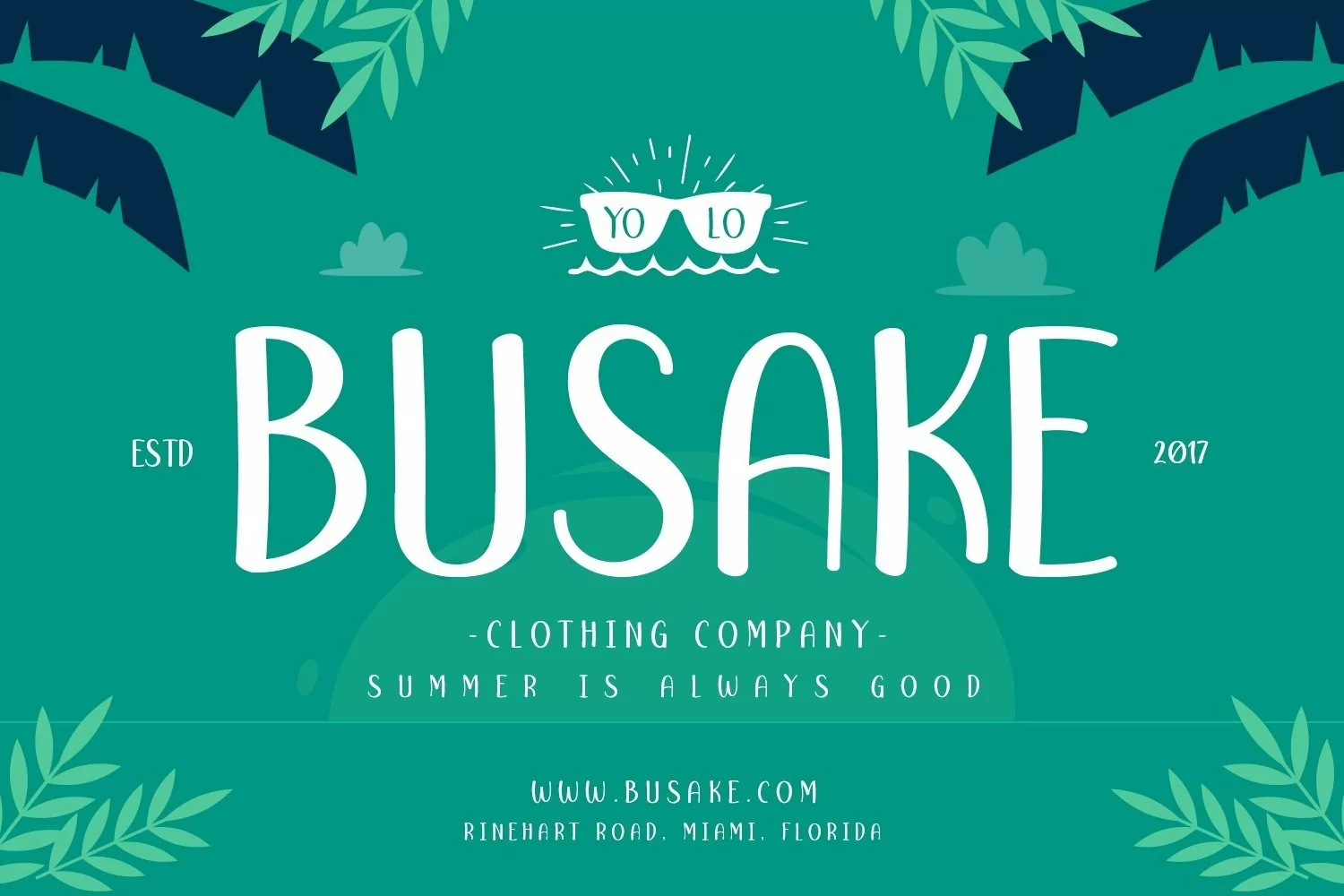
Web Font Sumays
Sumays is a display typeface. perfect for badges, branding, packaging, birthday gift, merchandise, quotes, print on t-shirt, mug and many more.